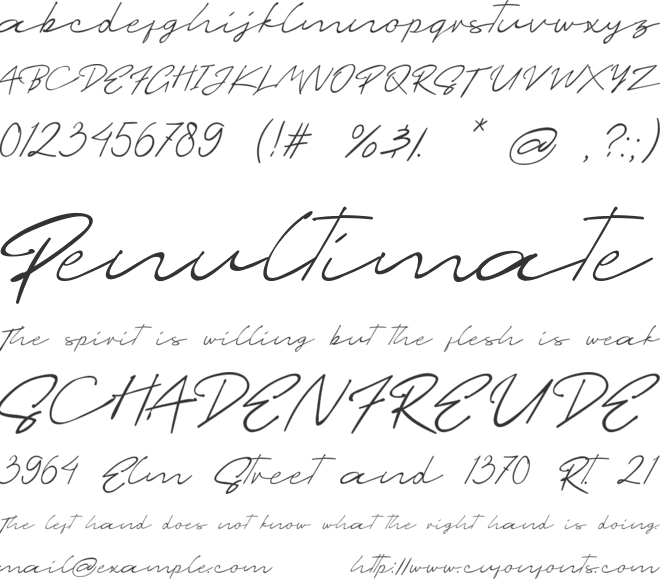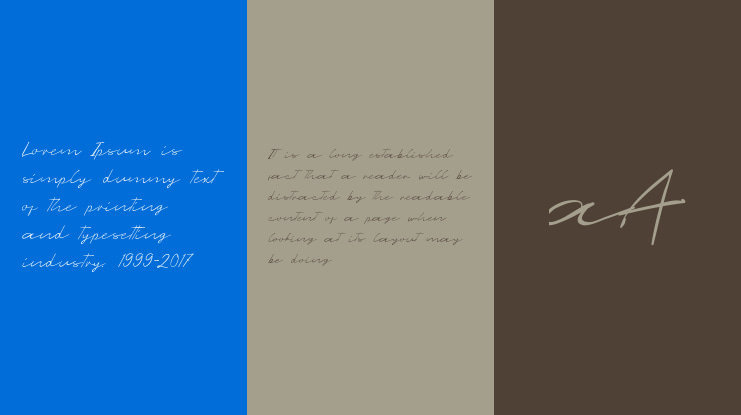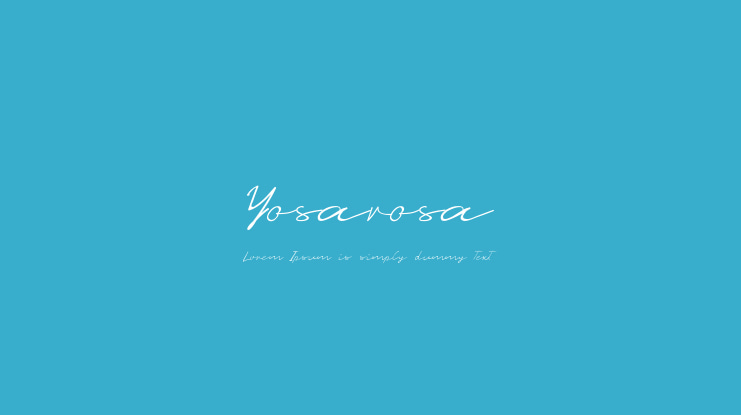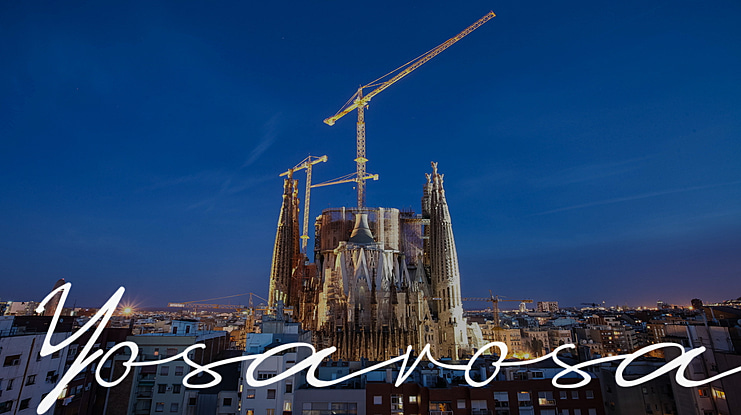
Yosarosa Font
Yosarosa Signature is a font that has a neat signature style. It seems that every font combination gives a real and exclusive look. Digitally hand-drawn, accentuating super clean smooth flow and high-intensity pen strokes. Characteristic and exclusive typography design will make this font suitable for various projects and products, such as photography, wedding invitations, fashion, greeting cards, notebooks, logos, T-shirts, and others.